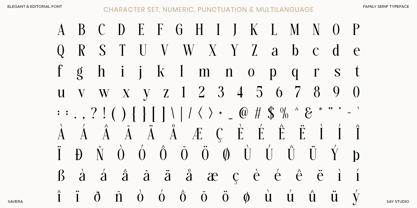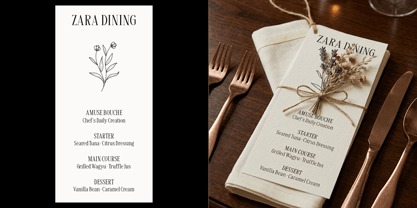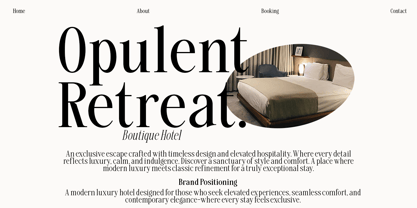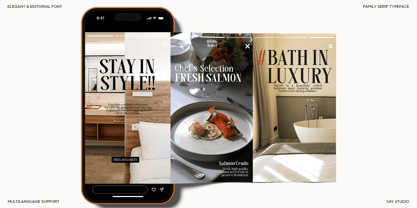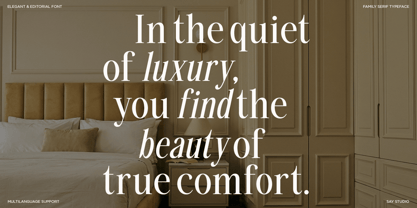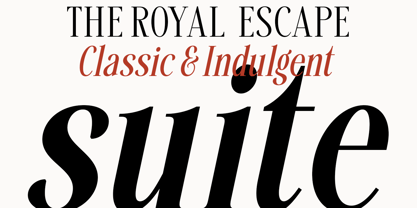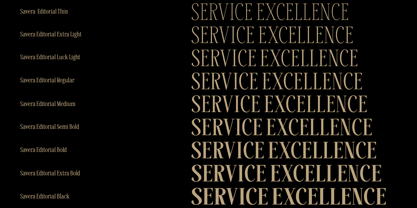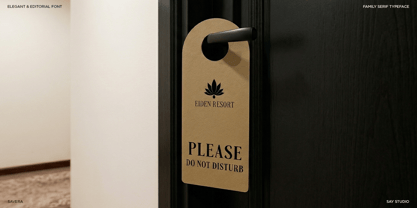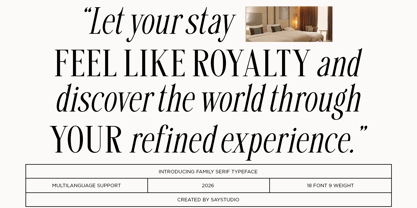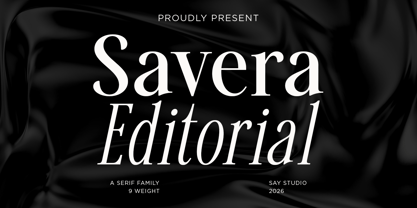
Savera Editorial
The Savera Editorial Font Family was designed by Mussyayin and published by Say Studio. Savera Editorial contains 18 styles and family package options. More about this family
Savera Editorial is a refined serif typeface designed for modern editorial elegance. Featuring graceful proportions and high-contrast strokes, it offers a sophisticated visual tone that is both timeless and contemporary. This typeface is perfect for elevating typography in luxury publishing and premium branding. Ideal for magazines, fashion branding, high-end packaging, and editorial layouts, Savera Editorial presents a polished and professional aesthetic. Its sharp details and balanced structure make it suitable for headlines, logos, and body text that require clarity and style. The italic variation adds an expressive touch, enhancing visual hierarchy and creative flexibility. Savera Editorial provides versatility for designers to create cohesive and dynamic compositions. Whether used for bold statements or delicate text, it ensures consistency and elegance across all design applications, making it a powerful choice for modern creative projects.